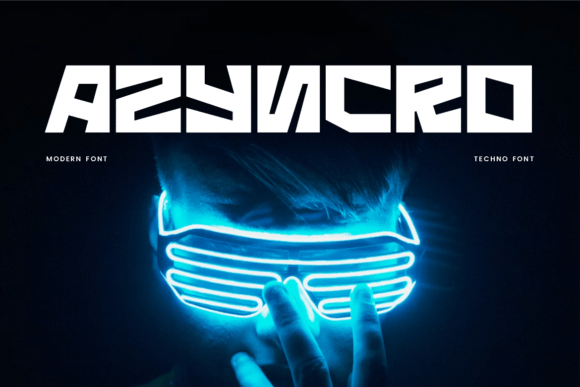
The Font that Defies Convention: Azyncro’s Futuristic Rebellion
Imagine being on a mission to create the perfect visual identity for a cutting-edge electronic music festival, where the line between reality and dystopia is blurred. You need a font that screams futuristic rebellion, something that embodies the raw energy of the digital age. That’s where Azyncro Font comes in – a bold, modern techno typeface that’s designed to disrupt the status quo and leave a lasting impression.
Azyncro Font is a masterclass in geometric design, with its angular tension and cybernetic energy radiating a sense of urgency and rebellion. Its unique blend of sliced terminals, geometric cuts, and exaggerated diagonal strokes makes it a game-changer for designers looking to make a bold statement in high-tech, experimental design. With its rigid construction and sharp personality, Azyncro Font is the perfect tool for creating immersive experiences that leave a lasting impact.
Azyncro Font Key Features
- Unique Characteristics: Azyncro Font features a unique blend of modern and minimalist design elements, with clean lines, geometric shapes, and a neutral color palette, making it ideal for corporate and business branding.
Azyncro Font Review
Overall, I think the Azyncro font is a decent addition to any designer’s toolkit. There are some features that really shine ✨, but there are also some limitations that hold it back ⚠️.
- ✨ The Azyncro font has a unique, modern feel that’s perfect for tech and innovation-focused brands. The geometric shapes and clean lines make it easy to read and understand.
- ✨ The font is highly customizable, with a wide range of weights and styles to choose from. This makes it easy to create a consistent look and feel across different design elements.
- ✨ The font is also highly versatile, working well in both digital and print applications.
- ⚠️ The Azyncro font can feel a bit cold and sterile at times, which may not be suitable for all brands or applications.
- ⚠️ The font’s unique style can also make it difficult to pair with other fonts, requiring careful consideration and planning to create a harmonious design.
- ⚠️ Some users may find the font’s geometric shapes and clean lines to be too minimalist or lacking in personality.
While the Azyncro font has its limitations, I think it’s a solid choice for designers looking for a modern and innovative font. With careful consideration and planning, it can be a great addition to any design project.
The Asynctro font is ideal for:
- Designing modern and sleek logos.
- Creating eye-catching headings and titles.
- Adding a touch of sophistication to your branding materials.
Remember to use the font in moderation and balance it with other design elements to avoid overwhelming your audience.